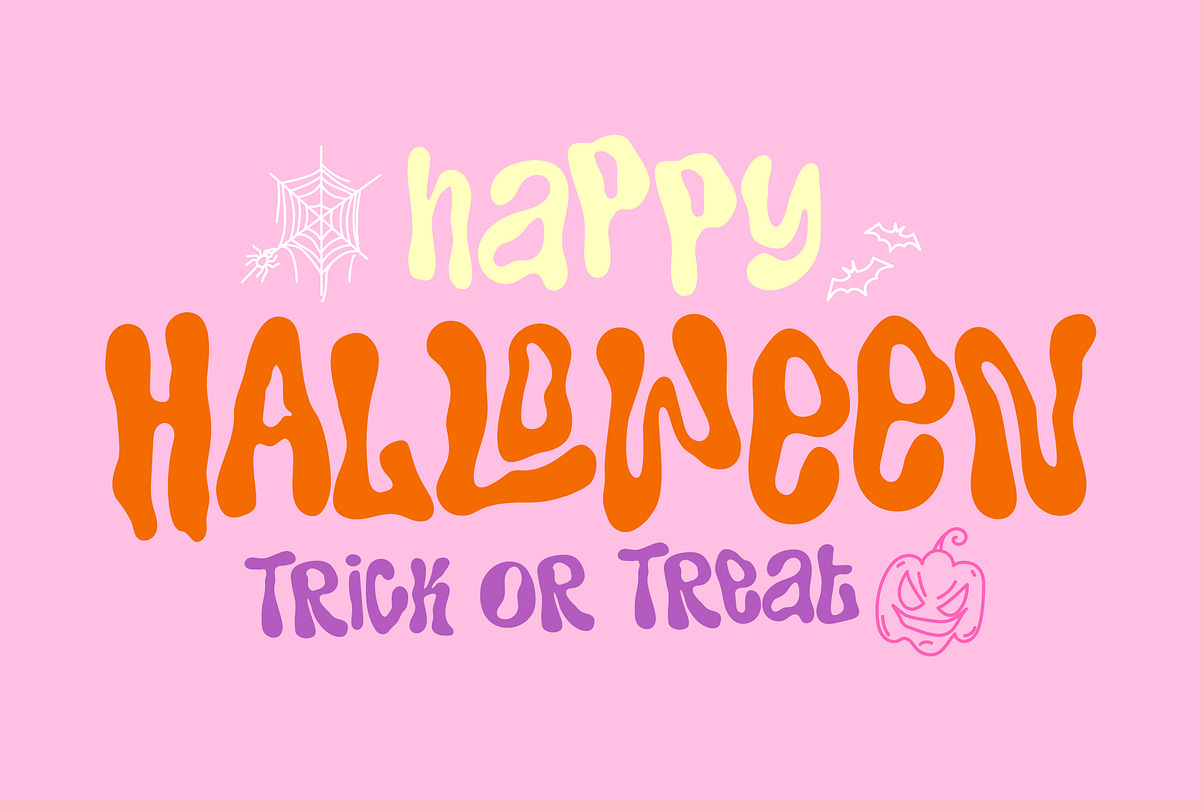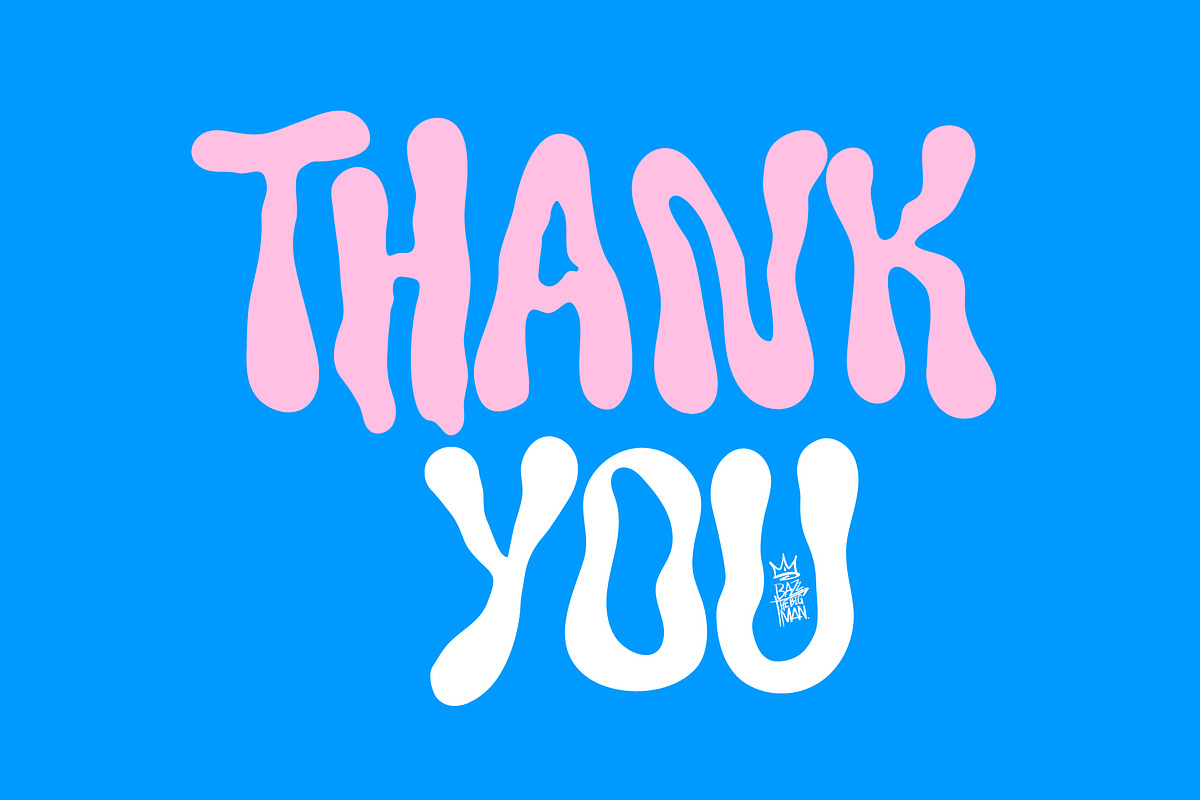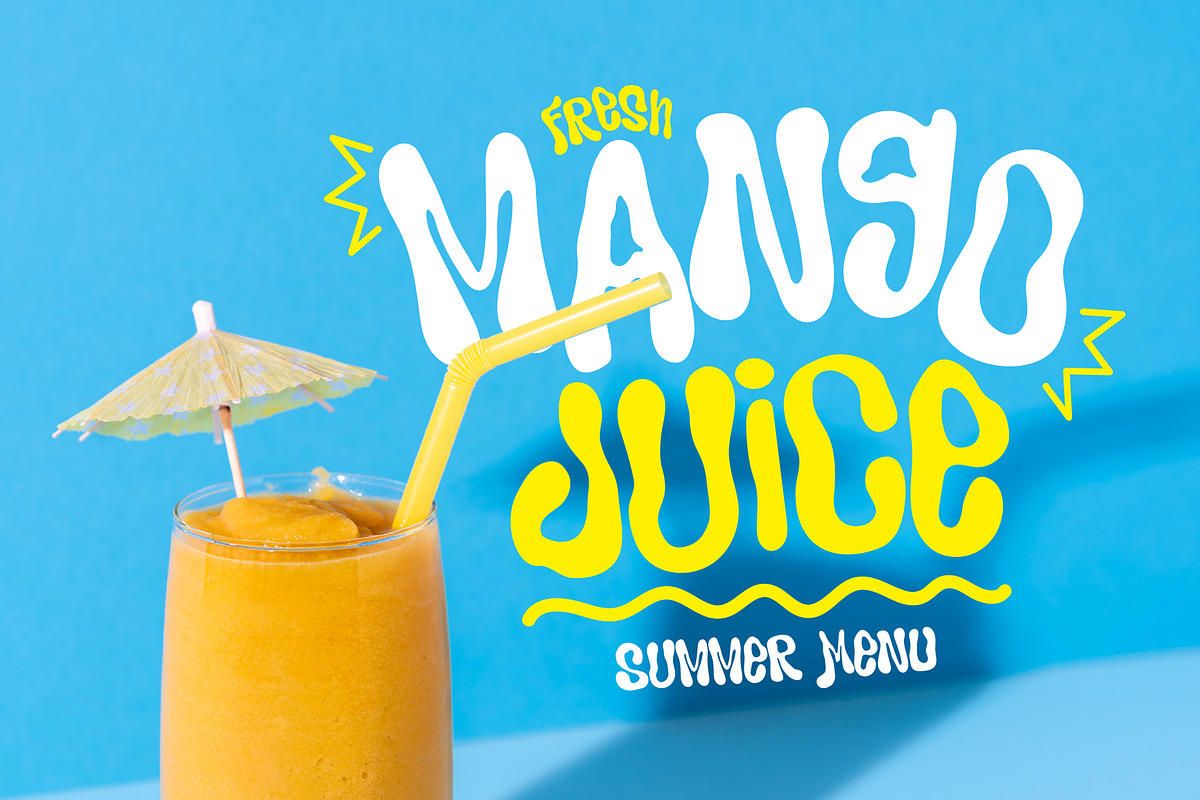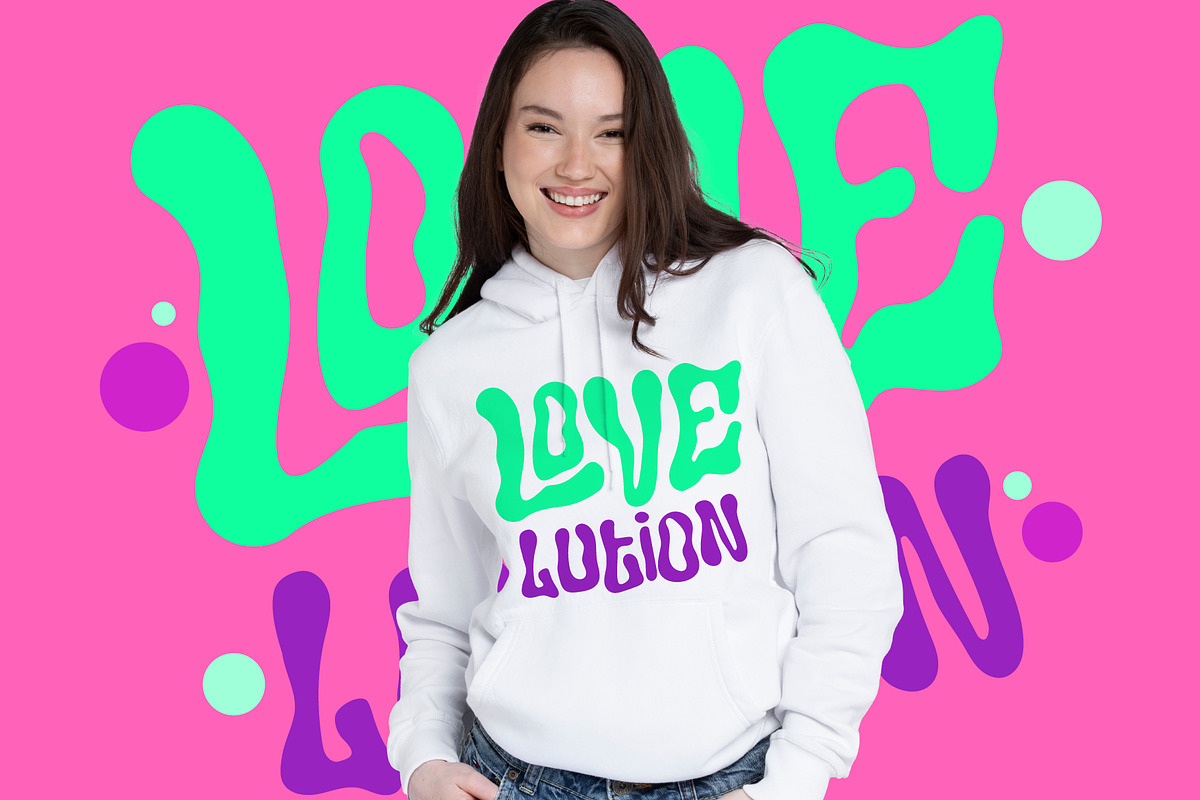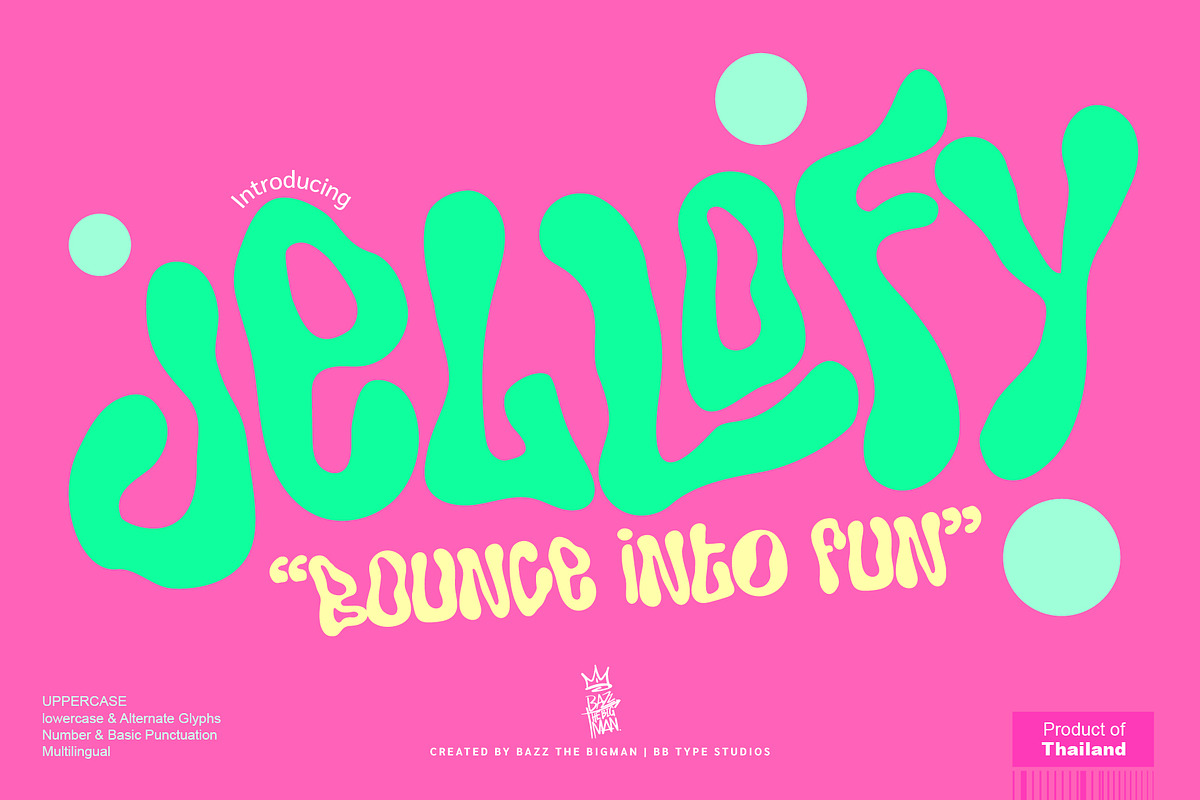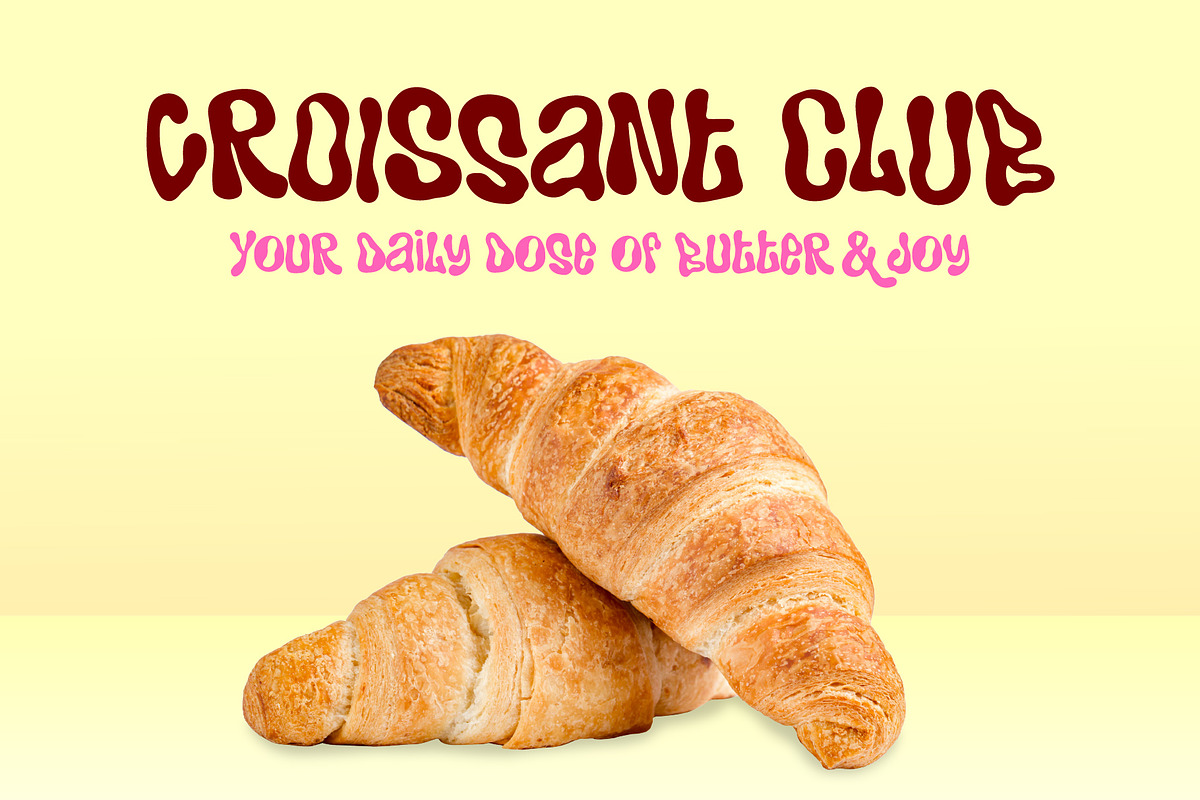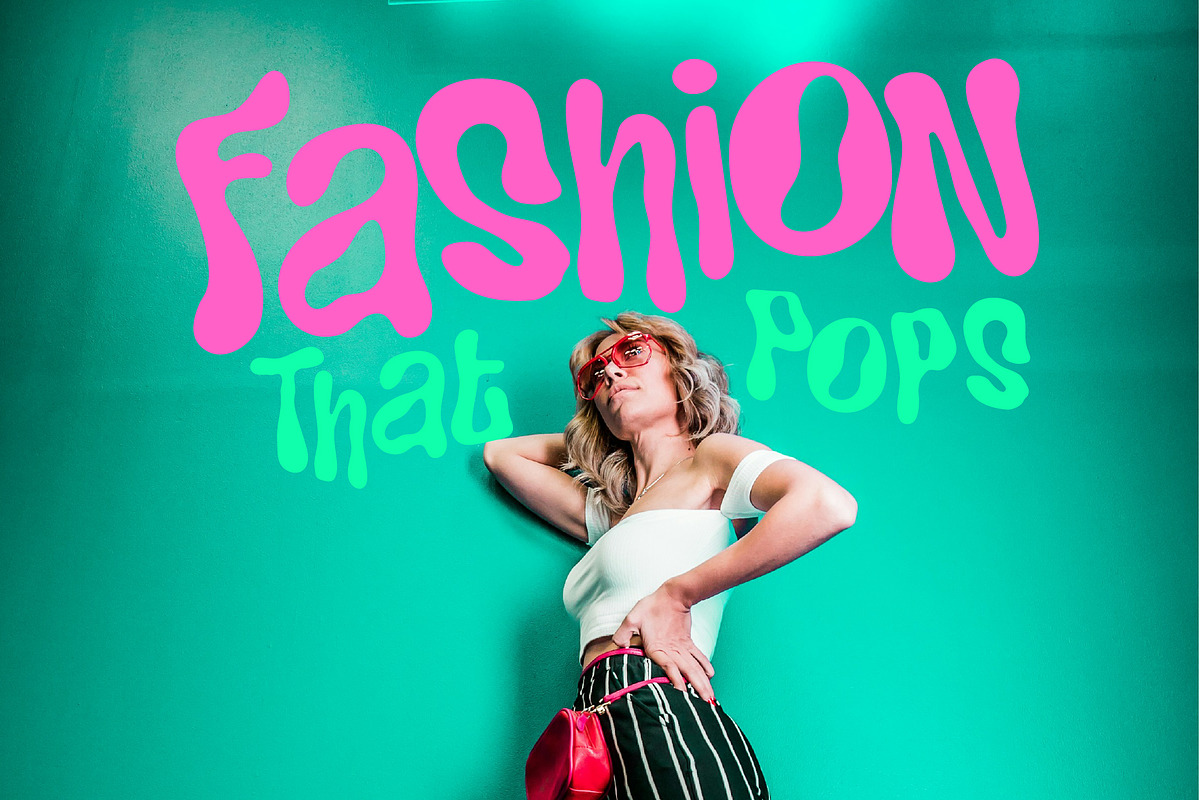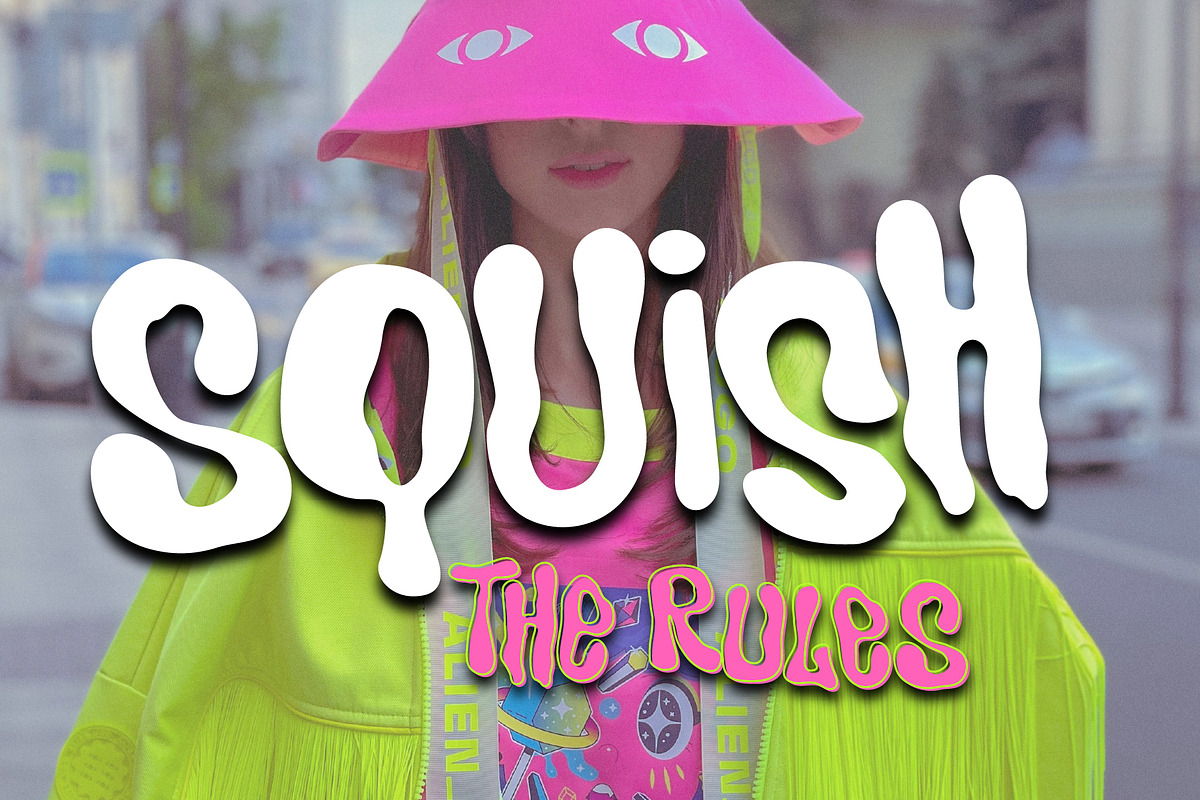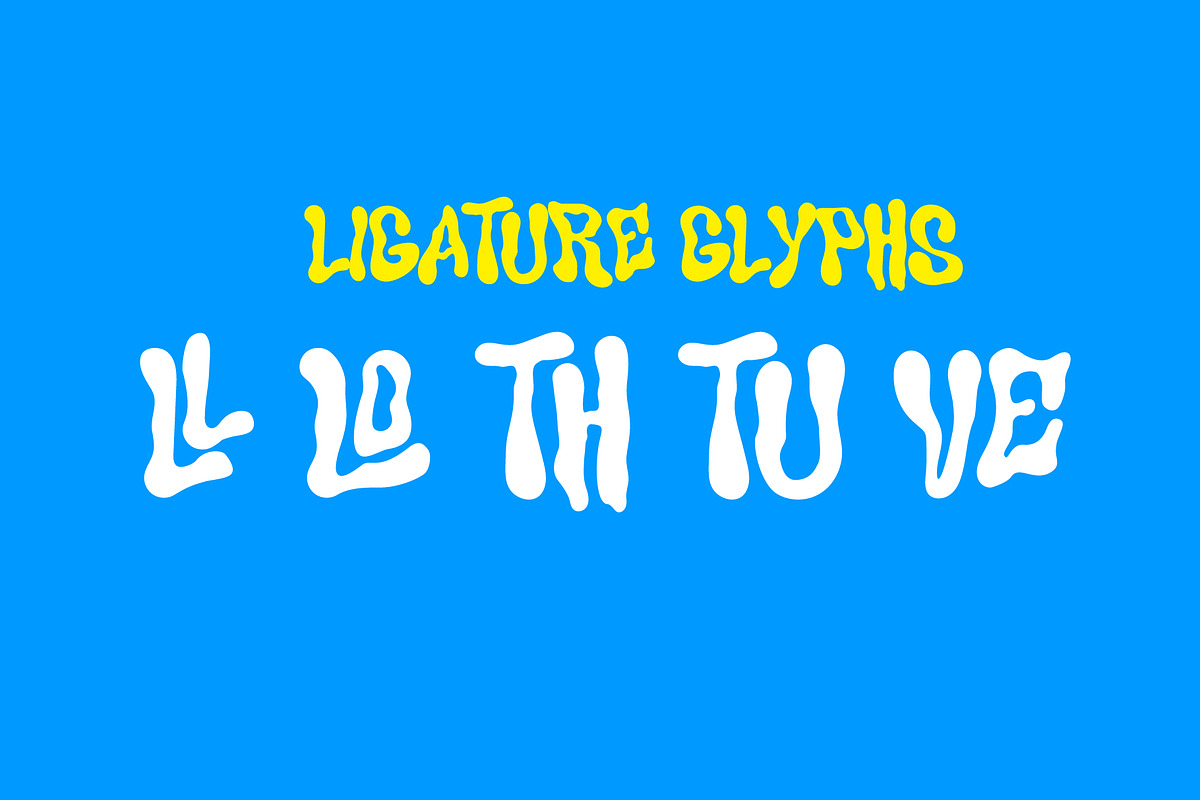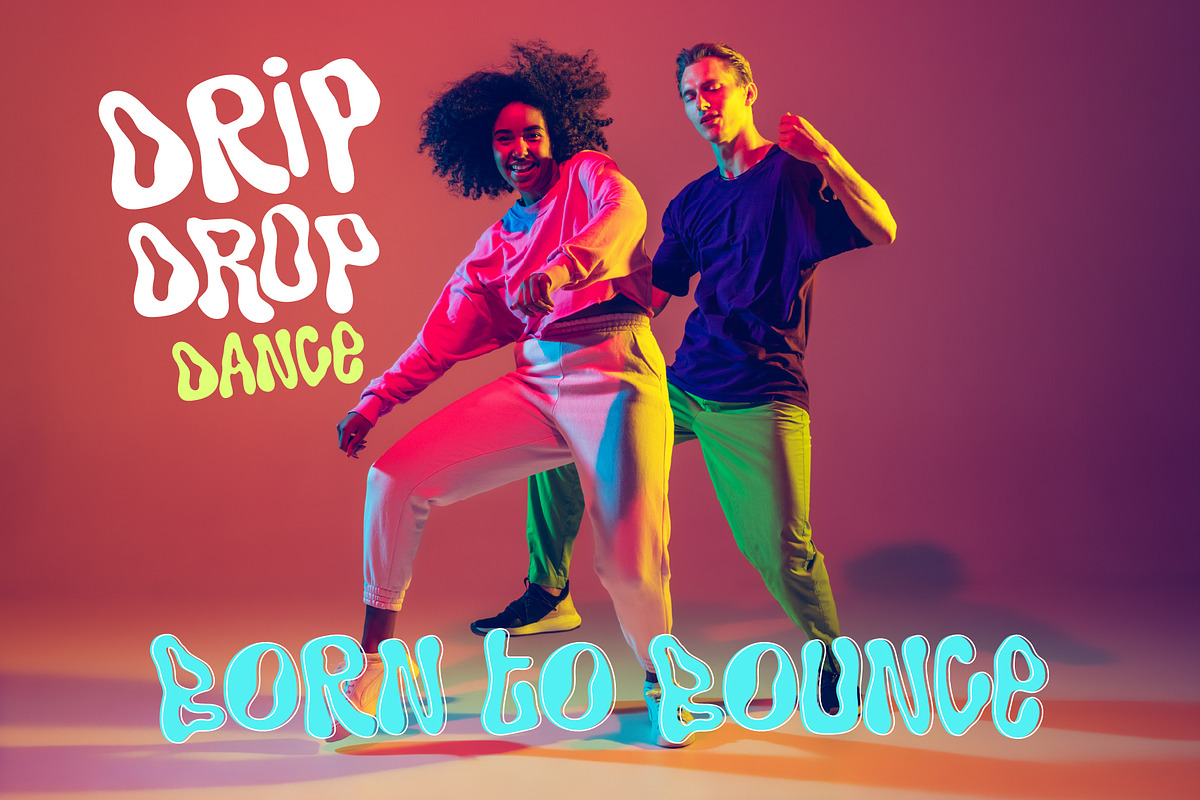
Jellofy
Jellofy – The Squishy Font with Serious Style
Say hello to Jellofy, a soft-edged, blob-hearted display font that feels like it’s about to wiggle right off your screen. With its plump, rounded forms and organically stretched curves, Jellofy captures the spirit of fun, flavor, and freedom in every letter. It’s not just a typeface — it’s a typographic bounce. Perfect for designs that want to feel juicy, playful, and impossibly soft.
- Chunky & fluid letterforms
- Naturally irregular curves
- Alternate glyphs & ligatures for extra bounce
- Uppercase + Lowercase
- Punctuation + Numbers